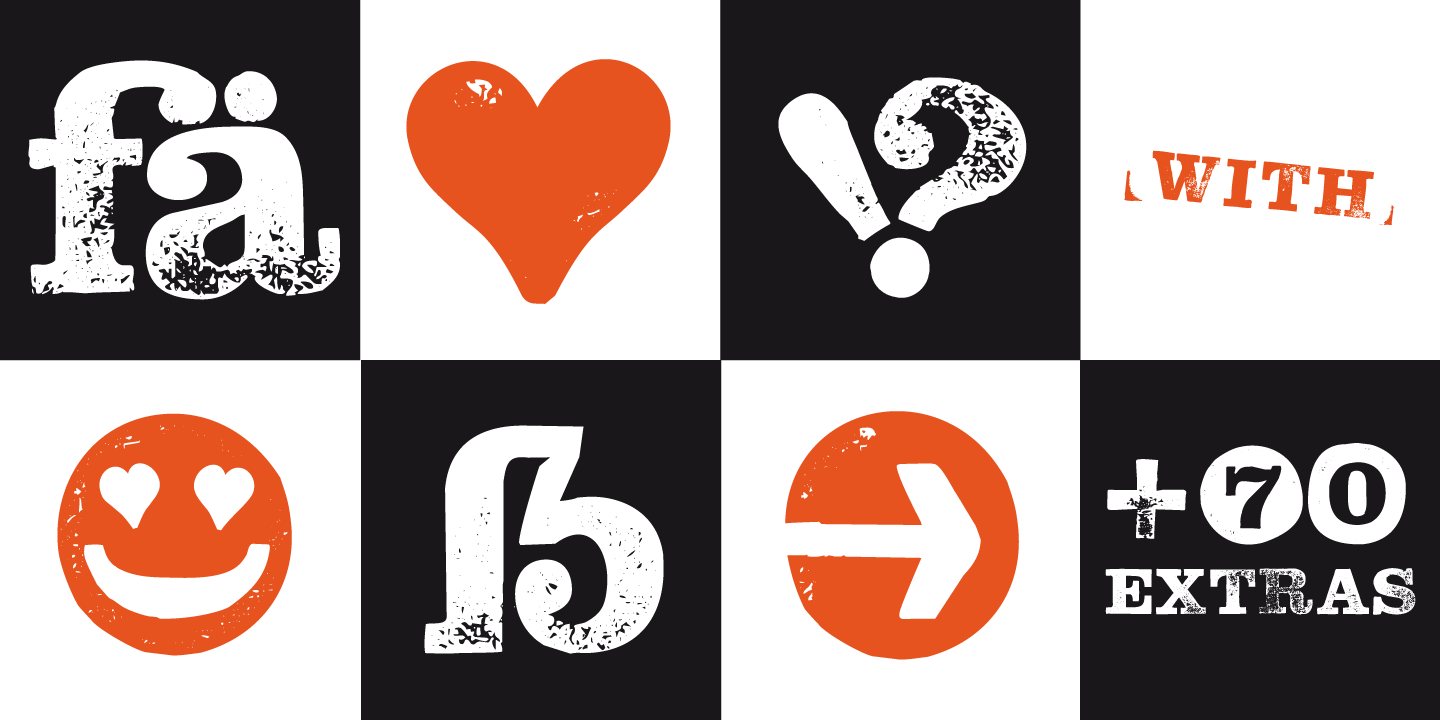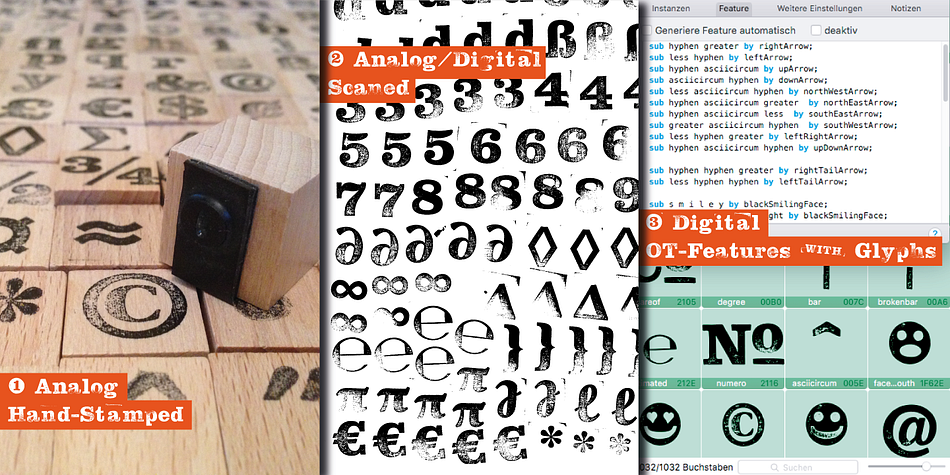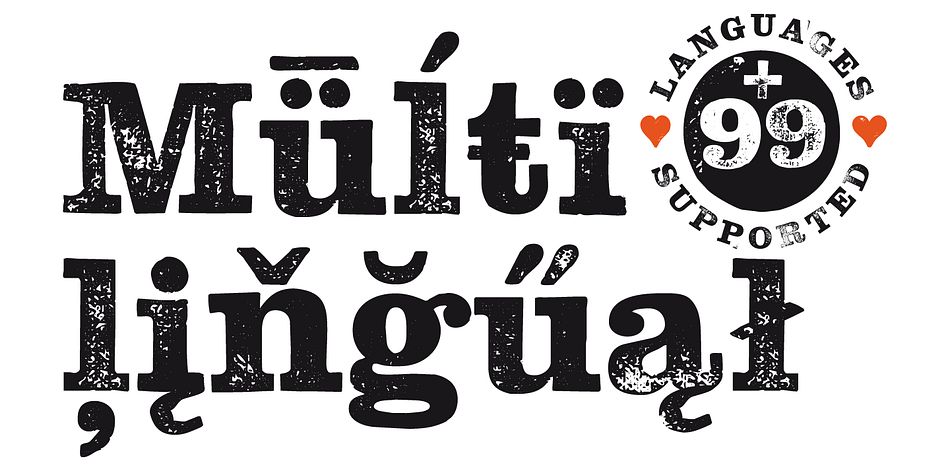
Designed by Manuel Viergutz, Hand Stamp Slab Serif is a grunge and display slab font family. This typeface has two styles and was published by Typo Graphic Design.
The typeface “Hand Stamp Slab Serif Rough” is designed for the Typo Graphic Design font foundry in 2017 by Manuel Viergutz. The display font with a classic slab serif type for headlines, based on real rubber stamp letters for an authentic, rough & dirty used stamp-style by hand.
Vintage-look plus state-of-the-art automatic generated OpenType-features (like contextual alternates (calt)). That looped automatically the 5 different letter variants for an individual, varied look. Just a natural handmade character.
For use in logos, magazines, posters, advertisement plus as web font for decorative headlines. The font works best for display size.
1031 glyphs with 5× A–Z, 0–9 & a–z and 70+ decorative extras like arrows, dingbats, symbols, geometric shapes, catchwords and many alternative letters. A range of figure set options like old style figures and additionally decorative ligatures (type the word “love” for ❤ … ), Versal Eszett (German Capital Sharp S) and symbols & emojis.